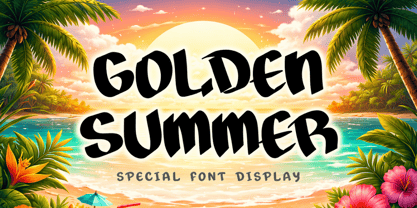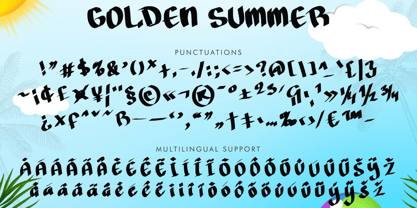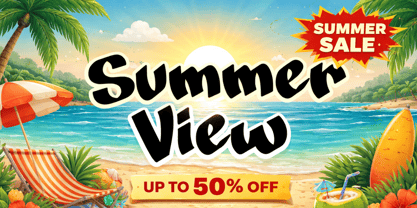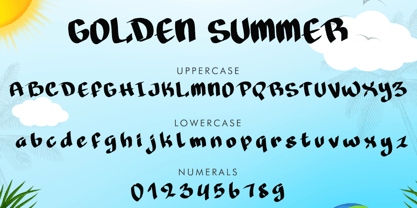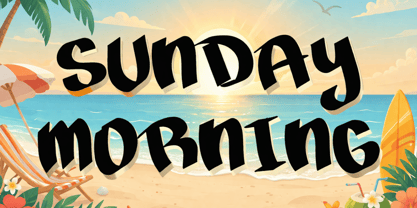
Golden Summer
by Yoga Letter
The Golden Summer Font Family was designed by Isroni Yoga Prasetya and published by Yoga Letter. Golden Summer contains 1 styles. More about this family
"Golden Summer" is a unique and elegant display font. It features uppercase and lowercase letters, numerals, punctuation, and multilingual support. It's perfect for summer, holidays, spring, coloring books, logos, stickers, banners, branding, back to school, children's magazines, patriotic prints, tshirts, business branding,bunny, rabbit, birthdays, and more.
Designers: Isroni Yoga Prasetya
Foundry: Yoga Letter